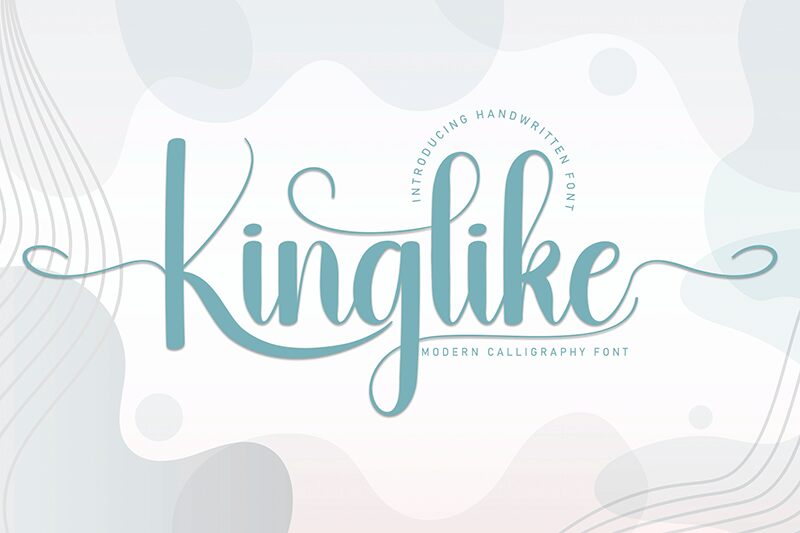
Kinglike
Kinglike font by Andi Moz is a free calligraphy font, formed from elegant calligraphic letters. It is condensed, expressive, and sophisticated while remaining modern and perfectly readable. The tone is serious while the overall typical flowing style of classic calligraphy is evident.